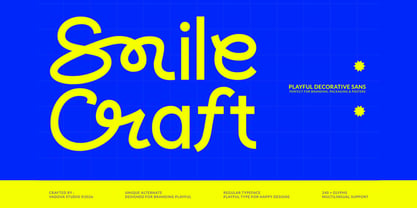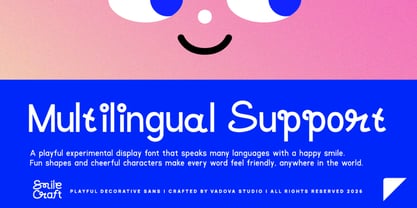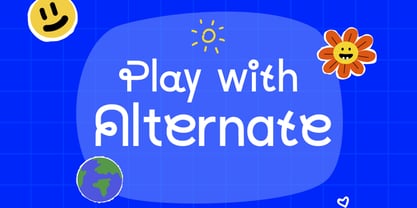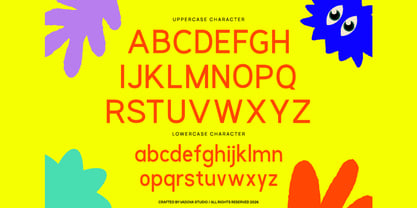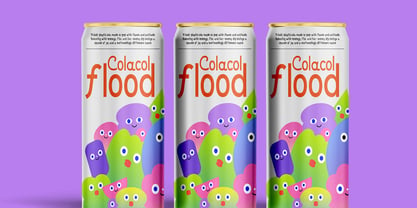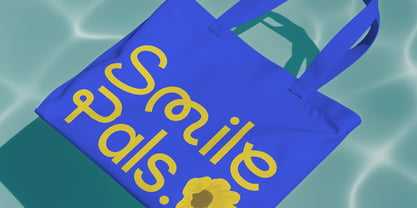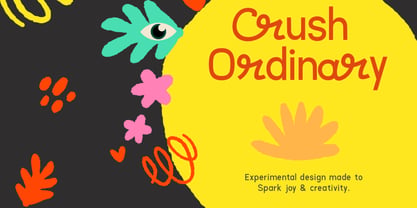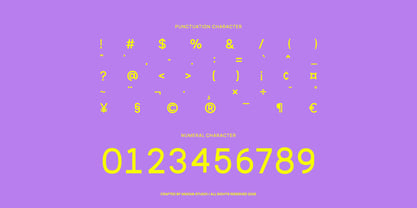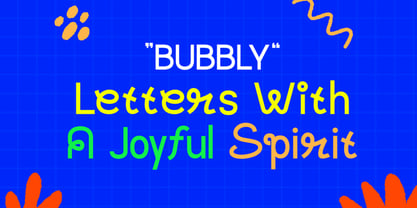
Smile Craft
Smile Craft is a playful decorative sans serif font designed with cheerful shapes, rounded strokes, and expressive letterforms that instantly create a friendly and joyful impression. The typeface features a full uppercase and lowercase set, numerals, punctuation, stylistic alternates, and multilingual support, making it flexible for global creative use. Smile Craft is perfect for creative projects that require a joyful, friendly, and expressive visual tone such as branding for playful products, packaging design, posters, social media graphics, children-oriented visuals, event promotions, and bold headline applications where personality and positivity are key.